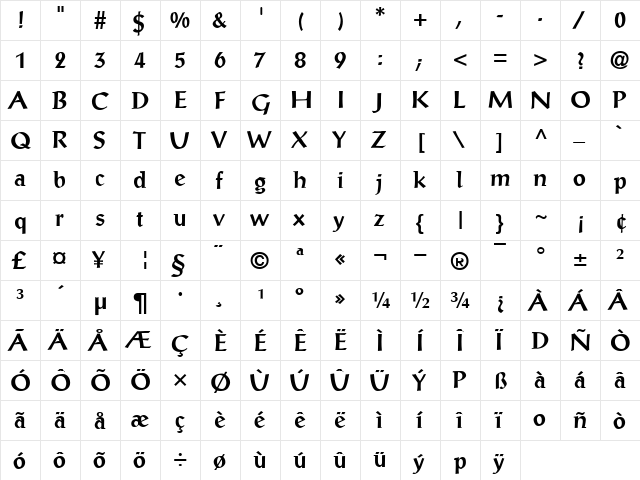
Antique2 Regular
Design Context for Antique2 Typeface
Antique2 wears its vintage influences proudly, with letterforms that recall mid-century signage, classic packaging, and nostalgia-driven design.
Font Pairing: Combine Antique2 with a simple slab or neutral sans — period-accurate companions reinforce the vintage feel without competing for attention.
Pro Tip: Lean into Antique2's period character by pairing it with aged paper textures, muted colour palettes, and vintage illustration styles.